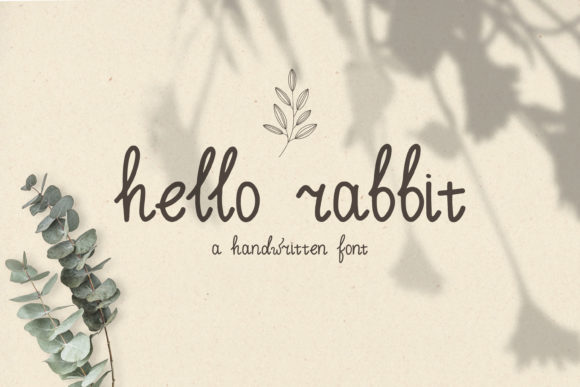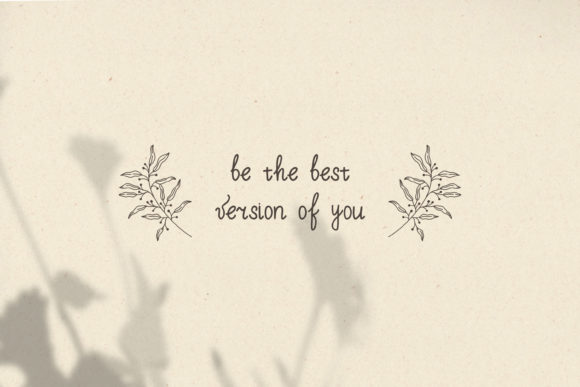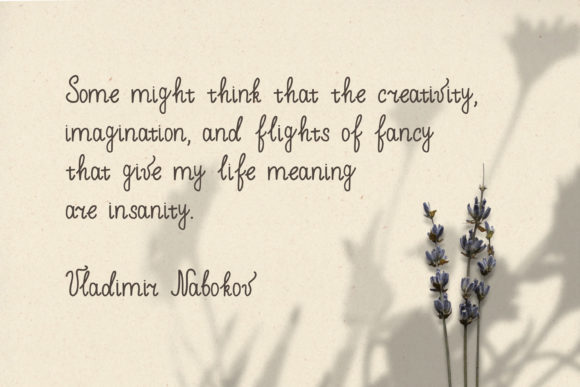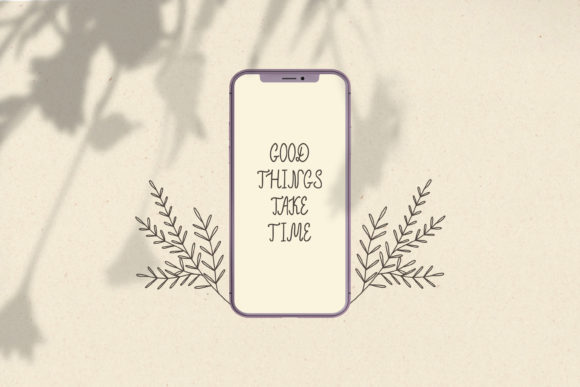
About Hello Rabbit Font
“Hello Rabbit” is a sweet script font that radiates charm and elegance. This font’s delightful character and elegant touch make it a great choice for a wide range of design projects, from logos and branding to stationery, social media design, and more.
The font’s sweet script style exudes a sense of playfulness and sophistication. Whether you’re working on projects that require a touch of elegance, a hint of charm, or a delightful aesthetic, “Hello Rabbit” can enhance your work with its artistically pleasing appearance.
The font’s versatility is highlighted by its ability to suit various design projects. From creating captivating logos to crafting stylish social media posts, the font can elevate your designs with its distinct and delightful charm.
In addition to traditional design projects, “Hello Rabbit” can also be used in digital planners or journals, adding a touch of elegance to your digital creations.
In essence, “Hello Rabbit” is more than just a font—it’s a creative resource designed to elevate your design projects. Its sweet script style, along with its versatile applications, make it a valuable asset for designers striving to create designs that are visually appealing, elegant, and filled with delightful charm, leaving a lasting impression.